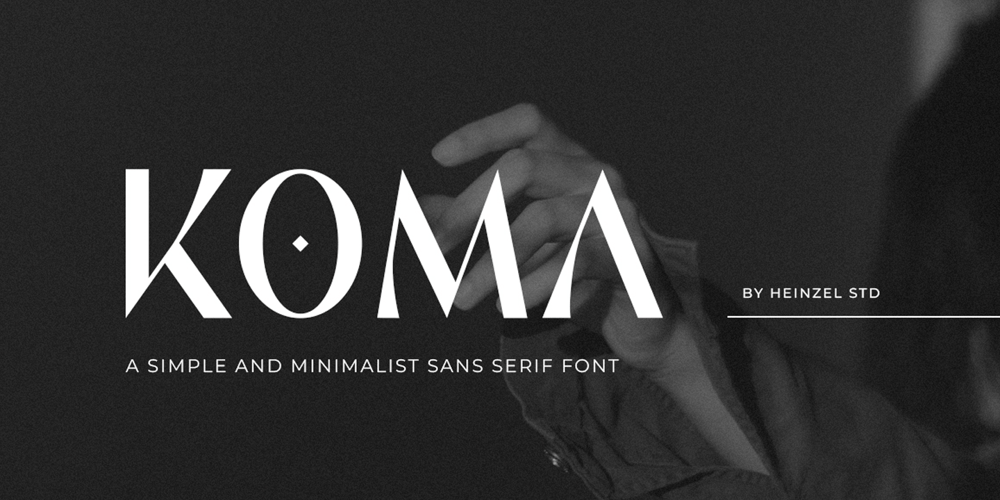
Koma Font Family was designed by Nofi Sofyan Hadi and published by Heinzel Std. Koma contains 1 styles and family package options. Koma – Modern Sans Serif and minimalist character! Koma perfect use for logos, print, collage, body text, and more! It looks minimalist a cool modern-meets-vintage look to any piece.